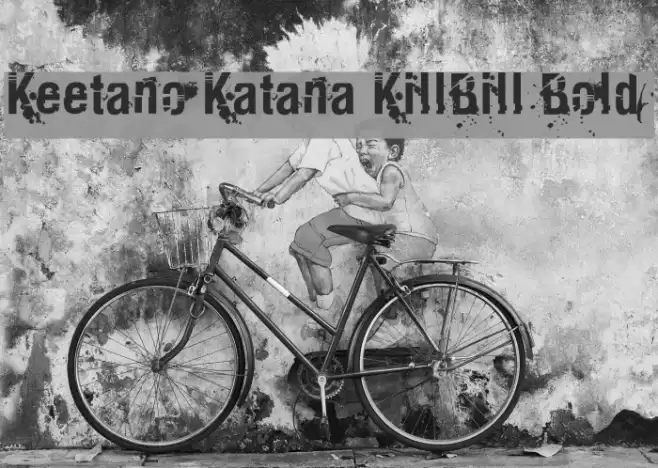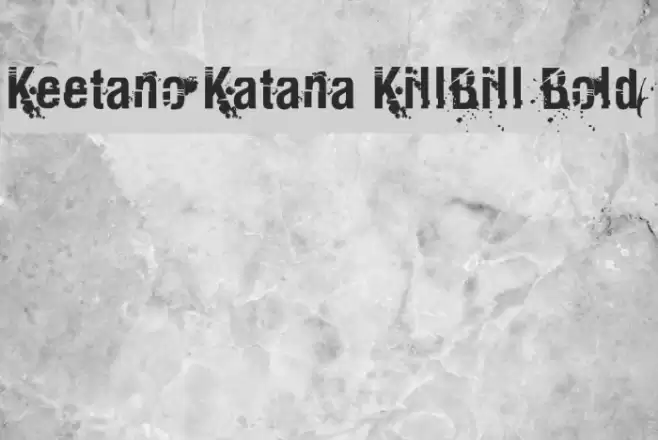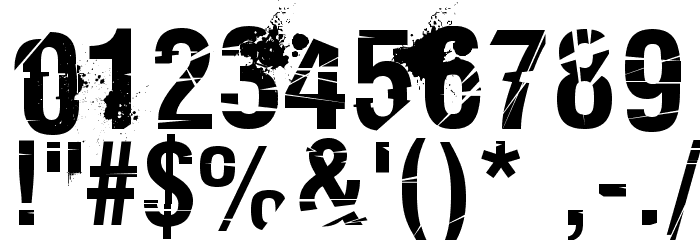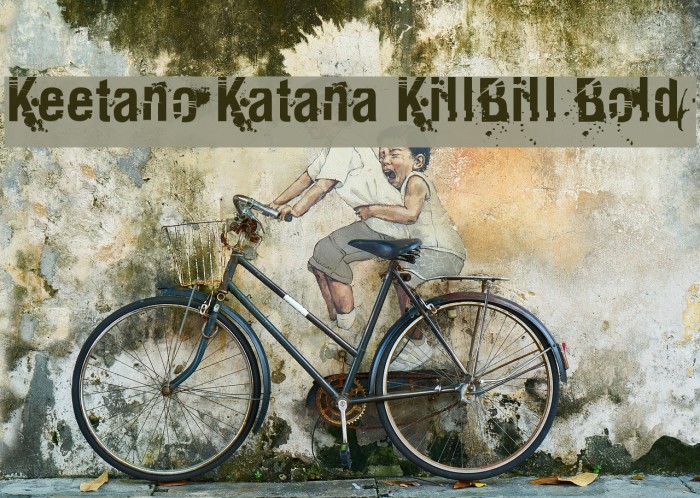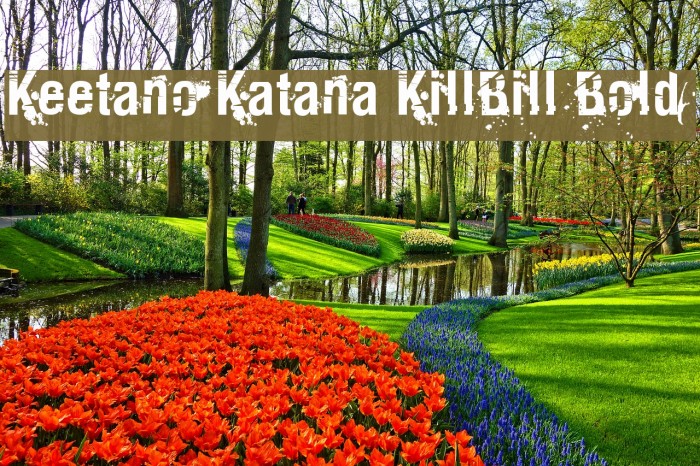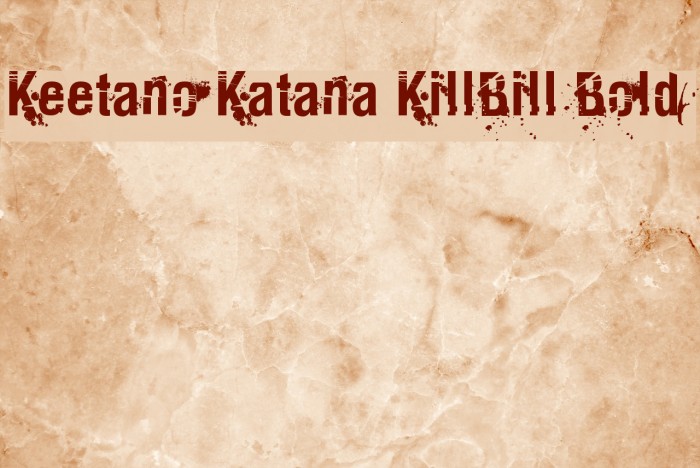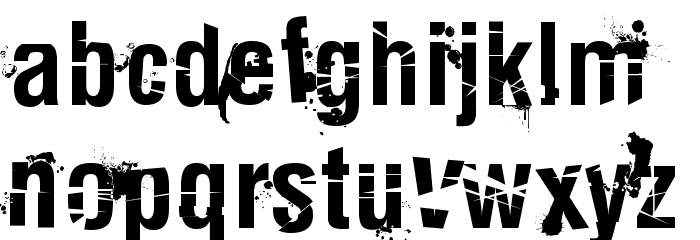
Keetano Katana KillBill Bold Font
Keetano Katana KillBill Bold Description
This font features a bold and aggressive style with a distressed, grunge appearance. The characters are heavily stylized, incorporating splatters and irregular edges that give it a chaotic and dynamic feel. The uppercase and lowercase letters maintain a consistent boldness, while the numbers and special characters follow the same rugged design. This font is ideal for projects that require a strong, impactful visual statement, such as posters, album covers, or video game titles. Its unique design elements make it stand out, capturing attention with its raw and edgy aesthetic.
A bold, distressed font with a grunge, chaotic style from Distorted Eroded fonts.
- Proposed Projects: Posters, album covers, video game titles, edgy branding.